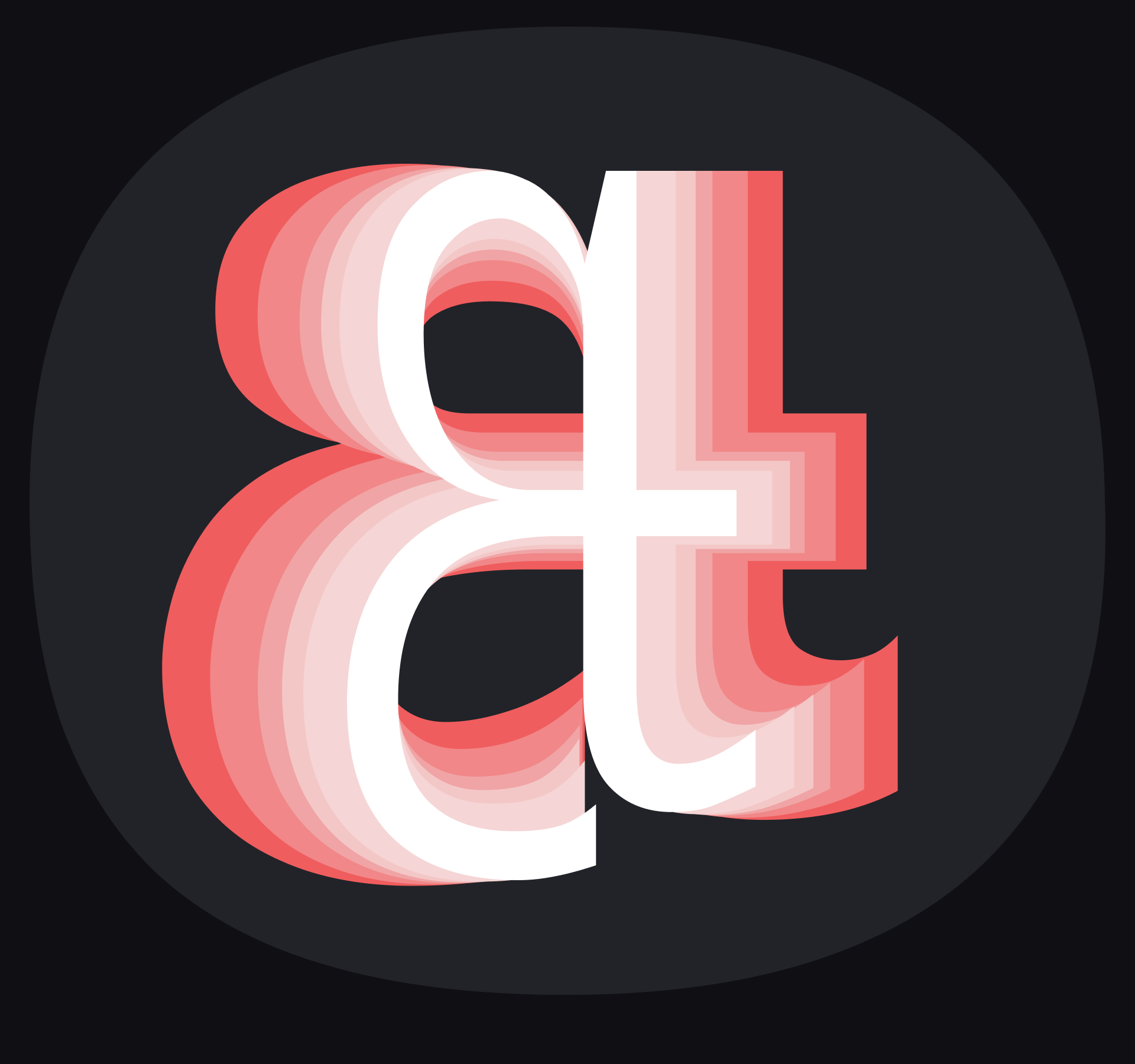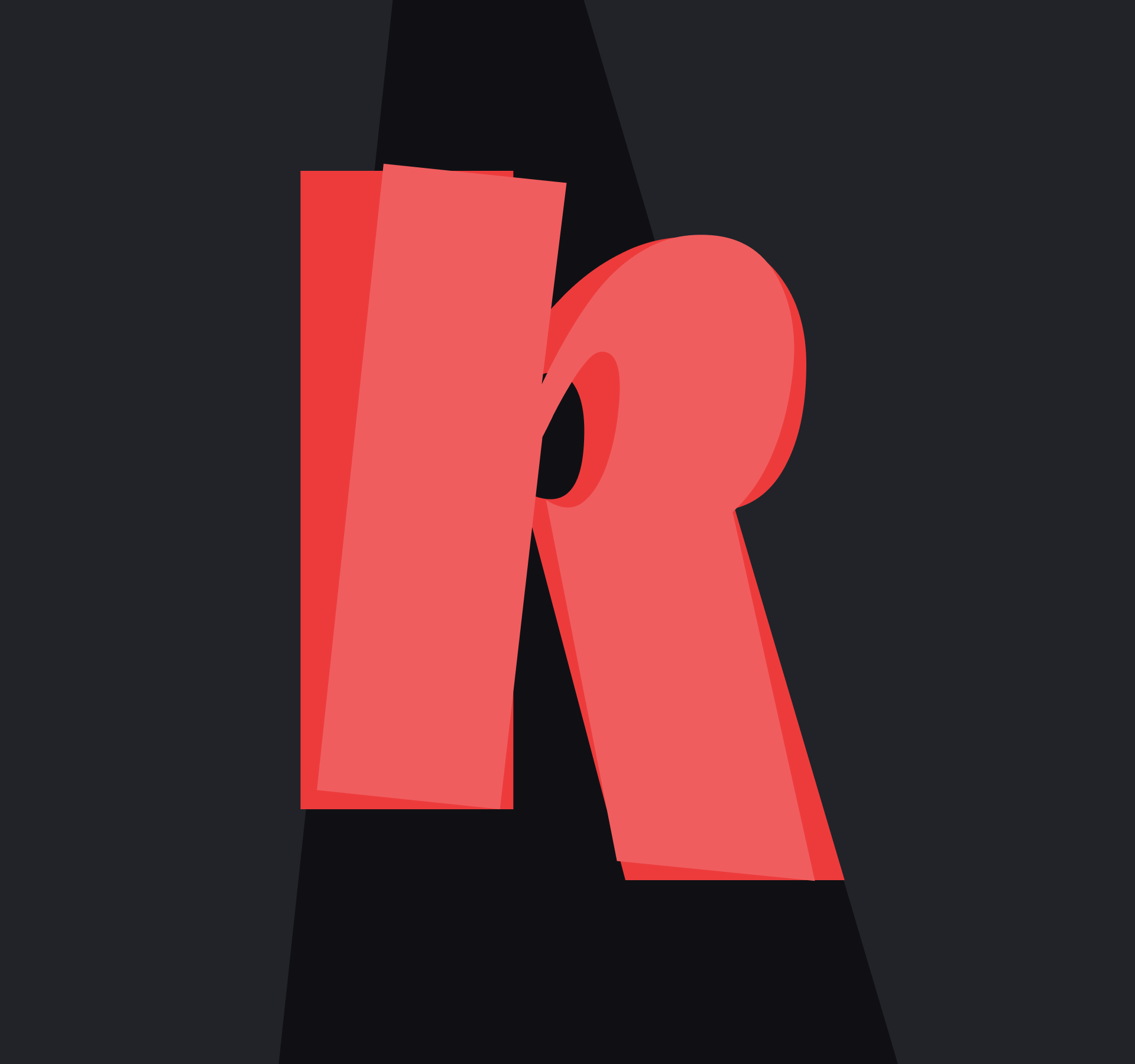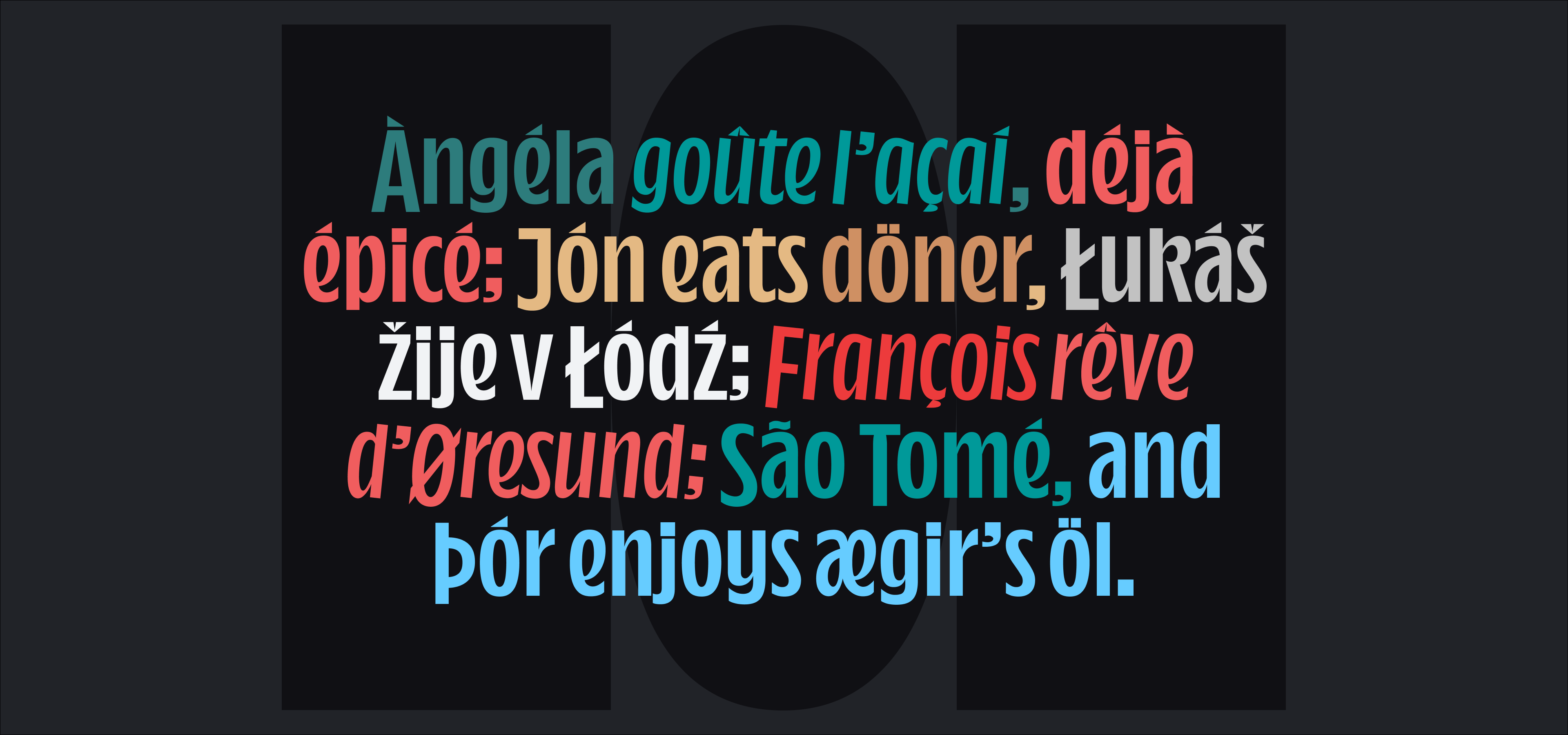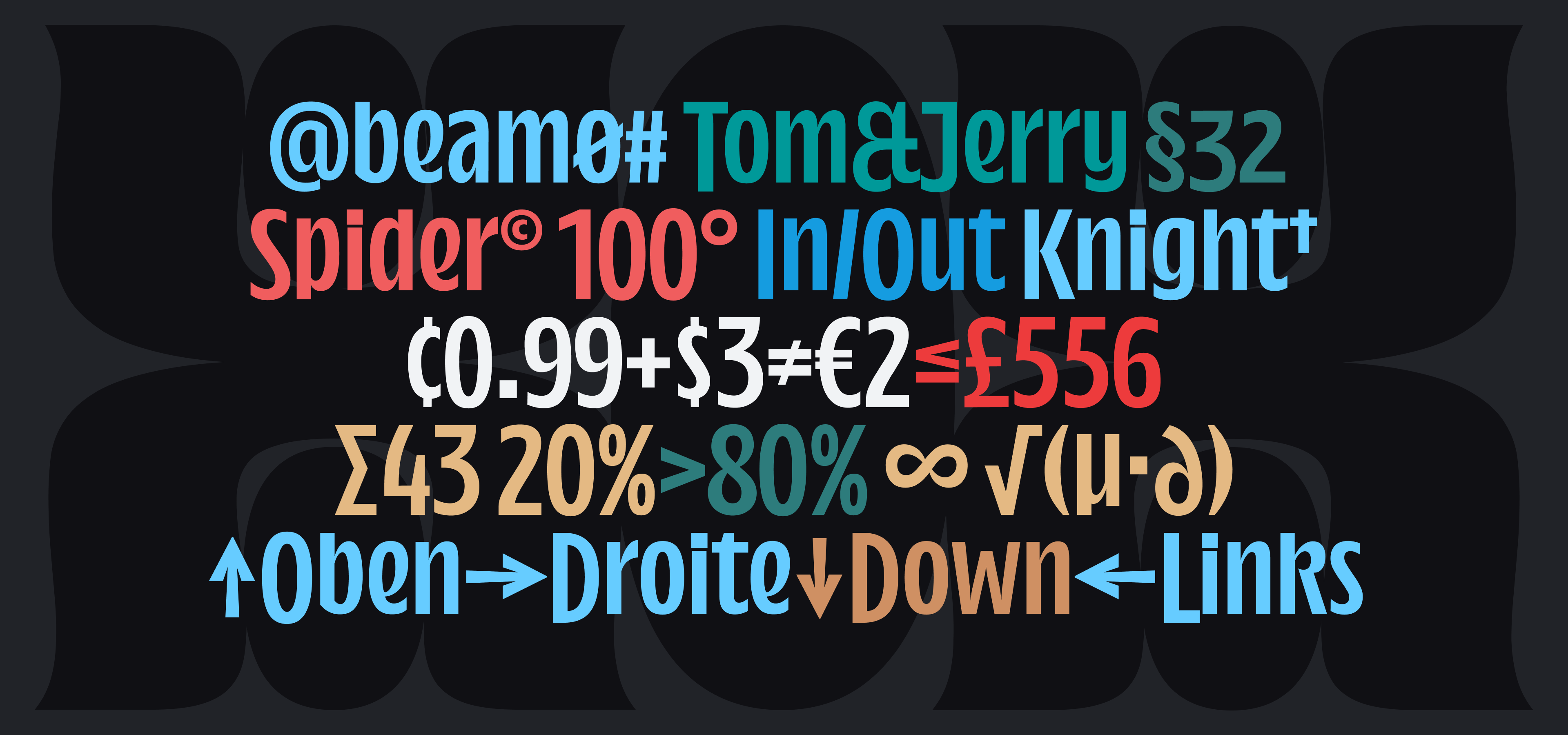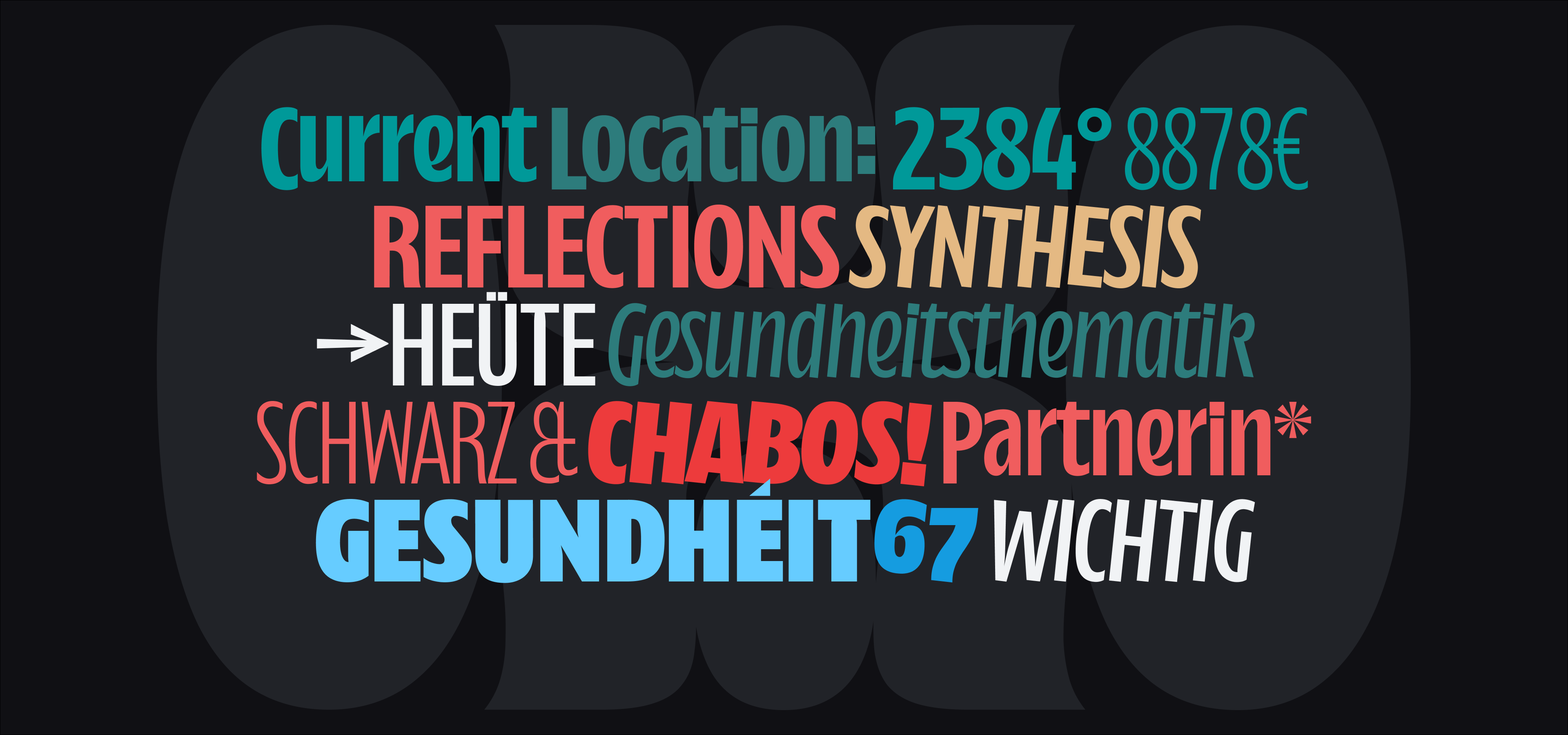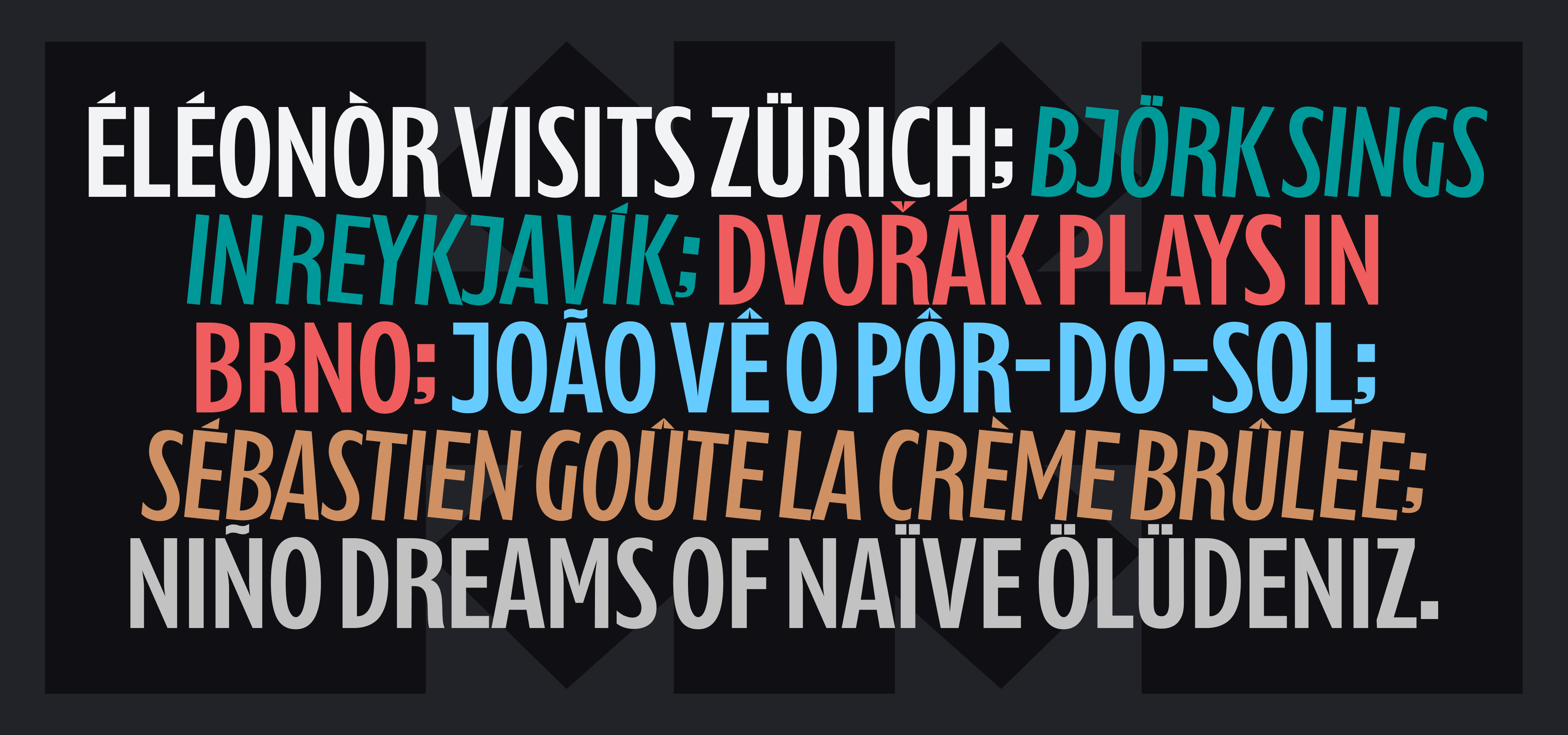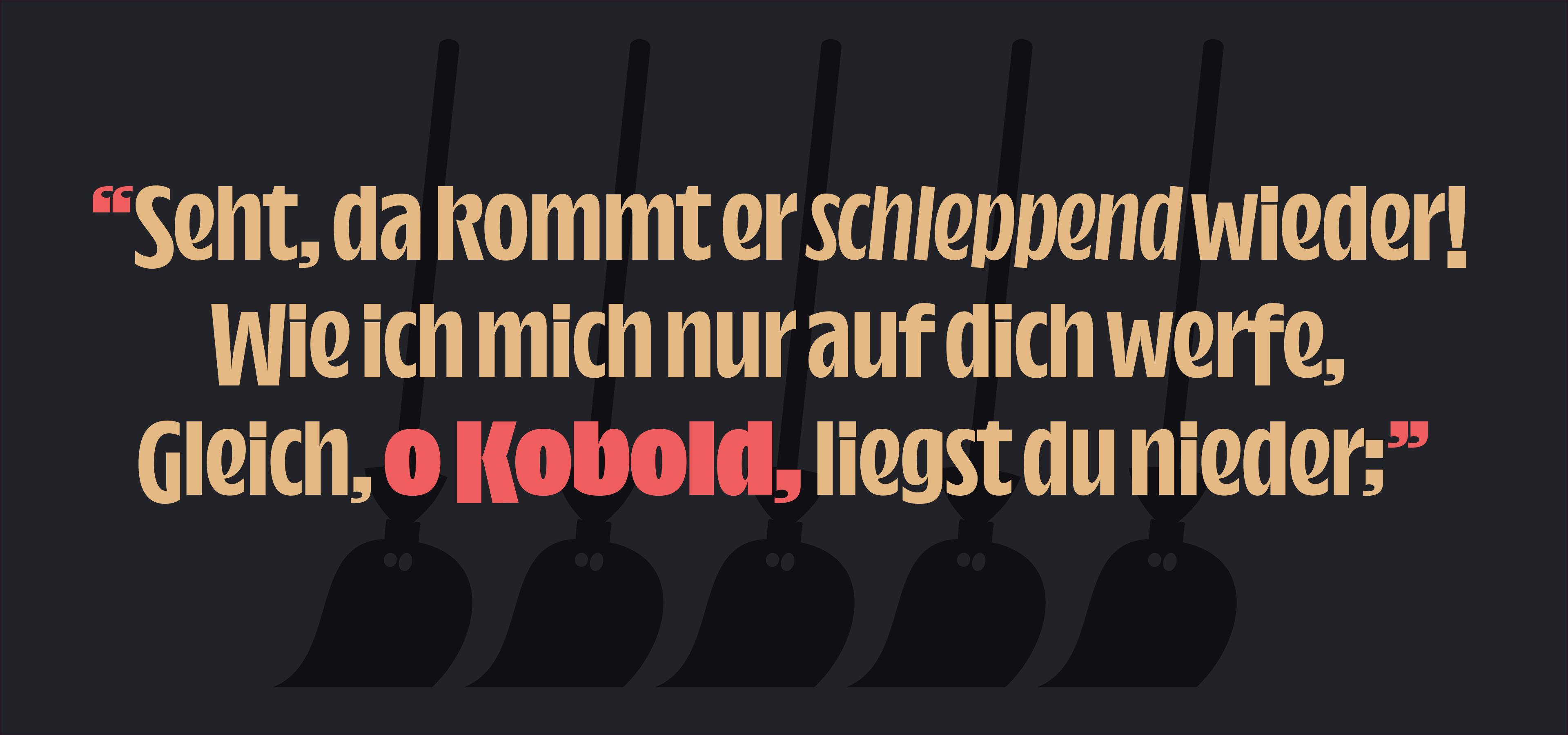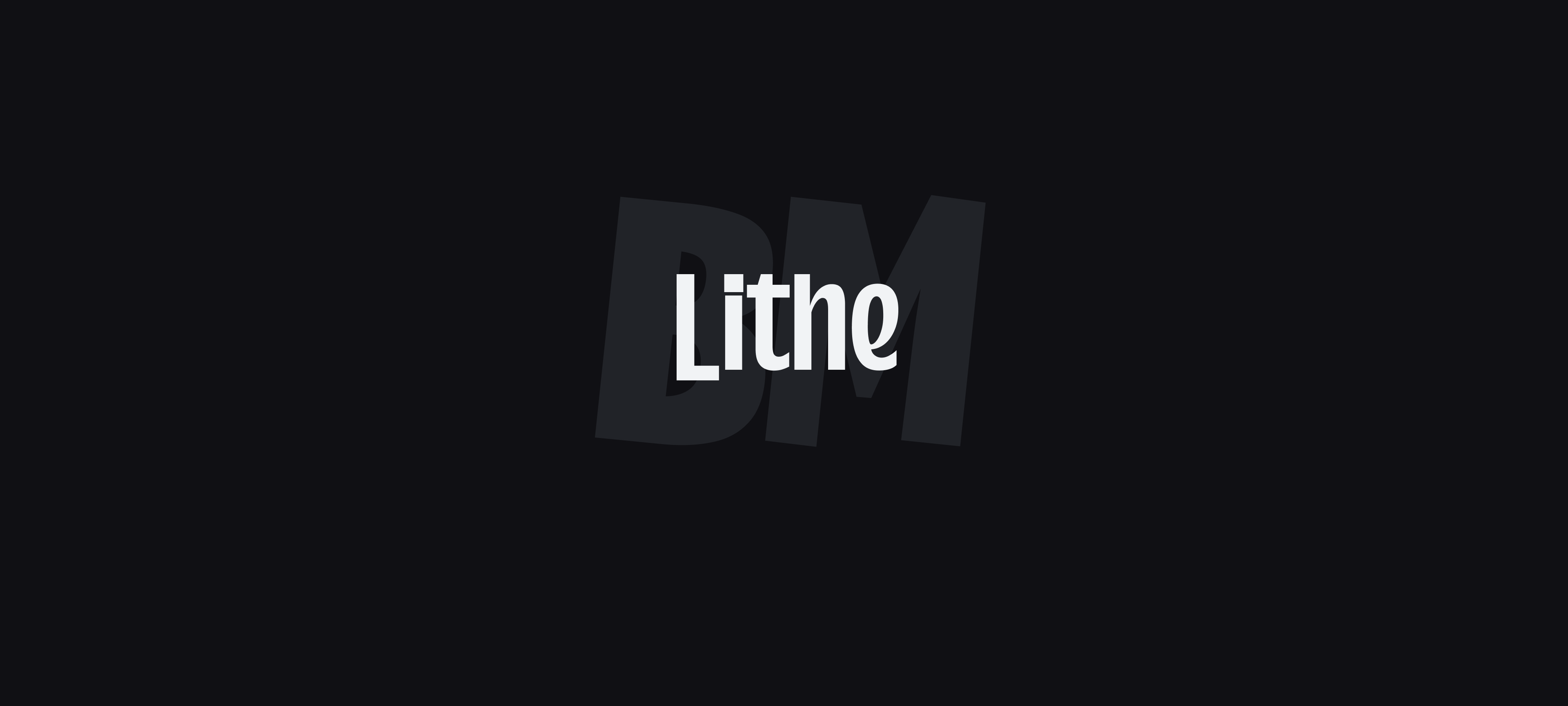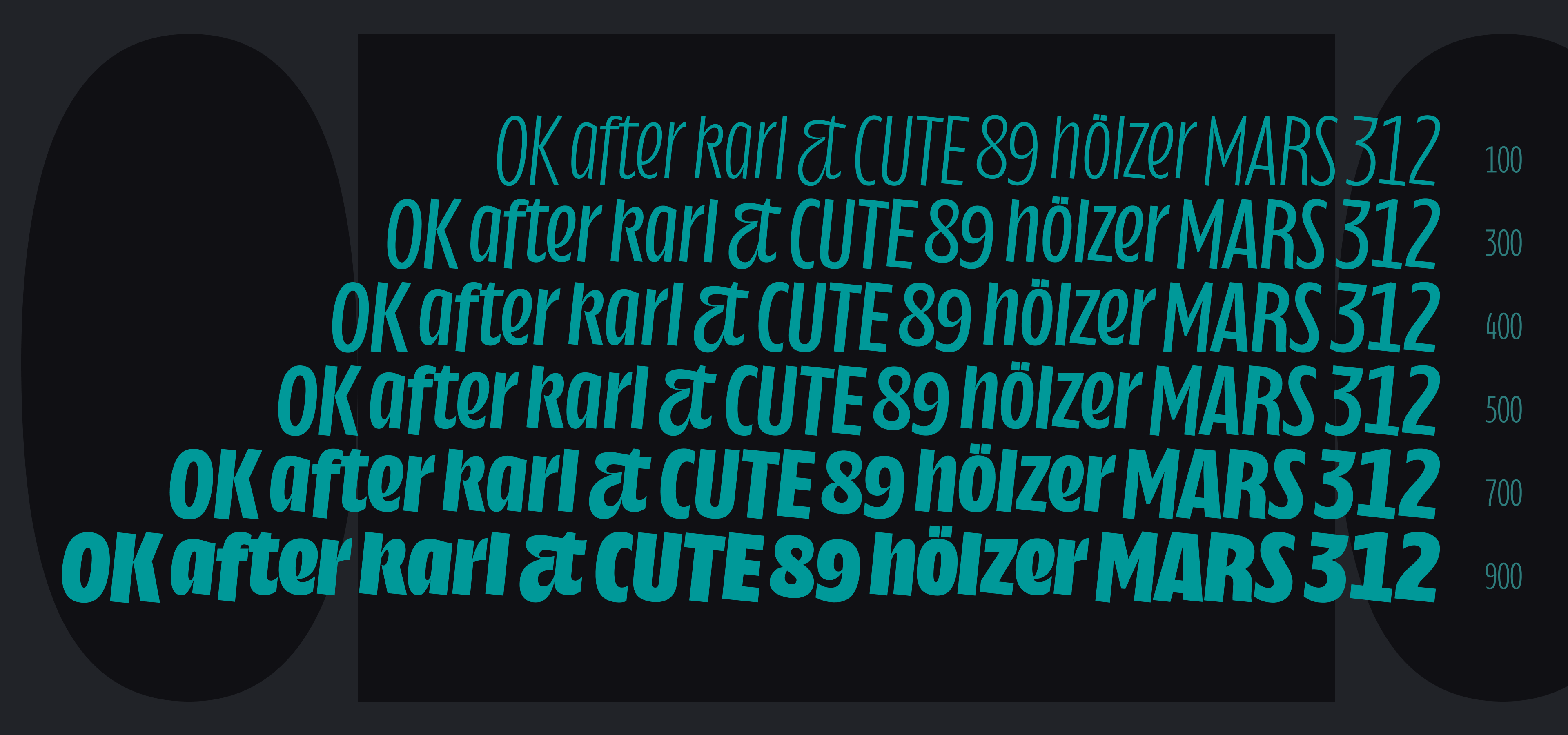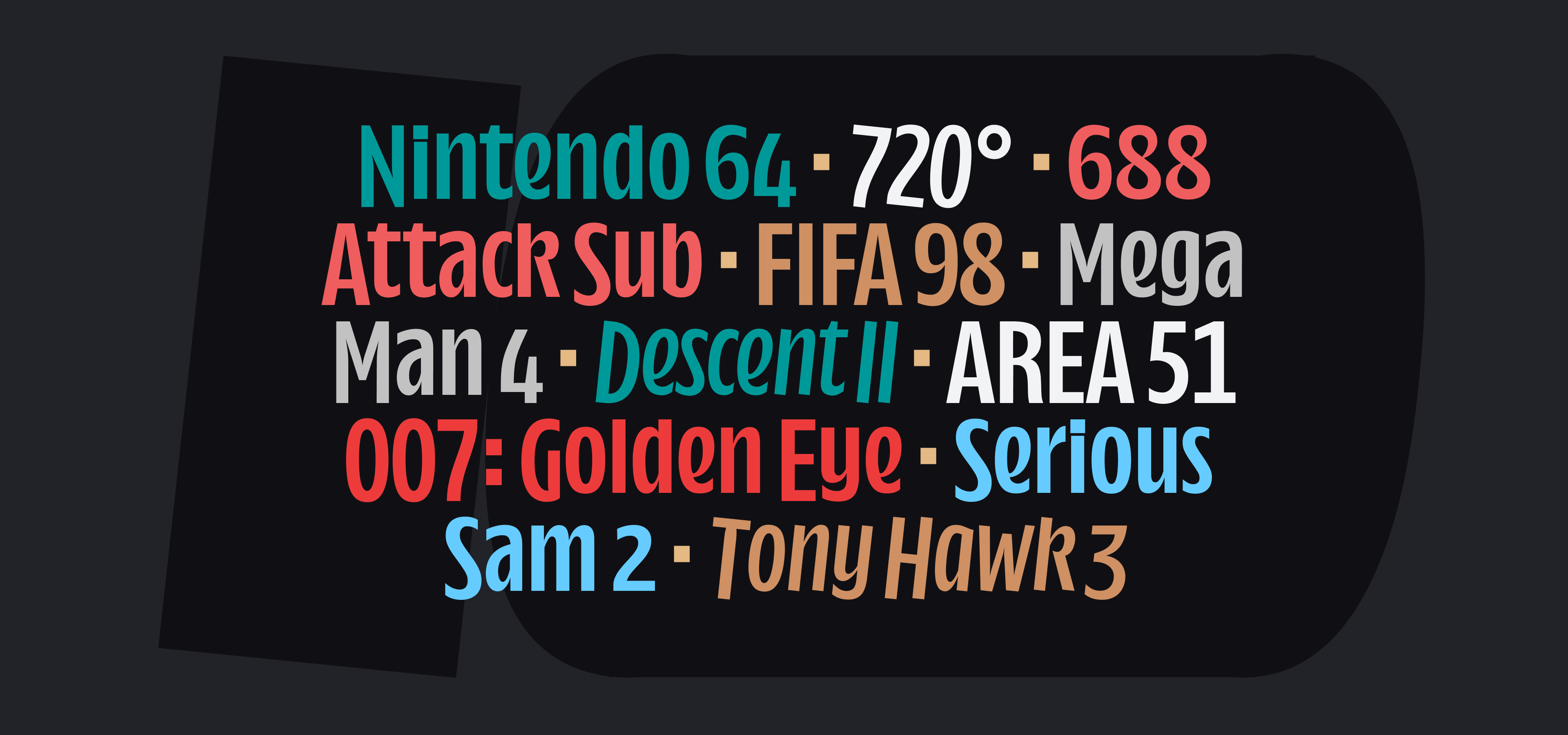
BM Lithe is a display sans serif that was originally designed by Felix Bamforth during his studies at TypeMedia. Drawn with very dynamic curves, BM Lithe is a condensed Sans with a large x-height and capital letters that descend below the baseline, giving the typeface a unique look. Composed of 6 upright weights each complemented by an italic made of rotated, rather than slanted letters, BM Lithe offers 12 styles with several alternates to help your communication look alive, modern and loud.
| Family Structure | BM Lithe (6 styles), BM Lithe Rotalic (6 styles) |
| Style Axis | Weight |
Using BM Lithe is straight-forward: It comes with a handful of stylistic alternates which can be used to tailor every word-shape to your liking. Because the capital letters don't sit on the baseline, but the descender level, the case feature will also help you shift down some elements like the period or comma in all-cap situations.